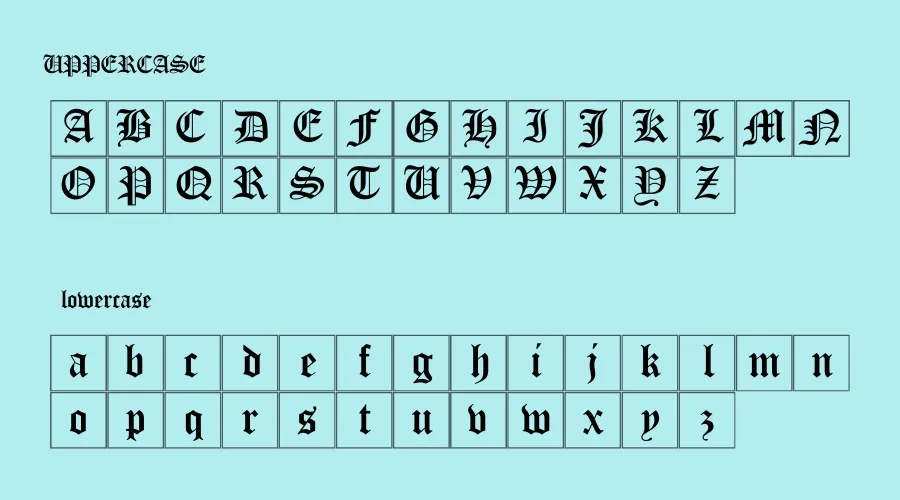
Canterbury Font
About Canterbury Font
Canterbury Font is designed by Dieter Steffmann and it is a fancy text style. For individuals seeking a contemporary and sleek screen typeface, the text size is a fantastic option.
For headers, logos, and brief paragraphs, the typeface is ideal. There are capital and lower - case letters, digits, and punctuations in the Font.
This typeface may provide a hint of competence, particularly when utilized as a professional typography or in contemporary, straightforward designs. This typeface may be used for traditional and web applications.